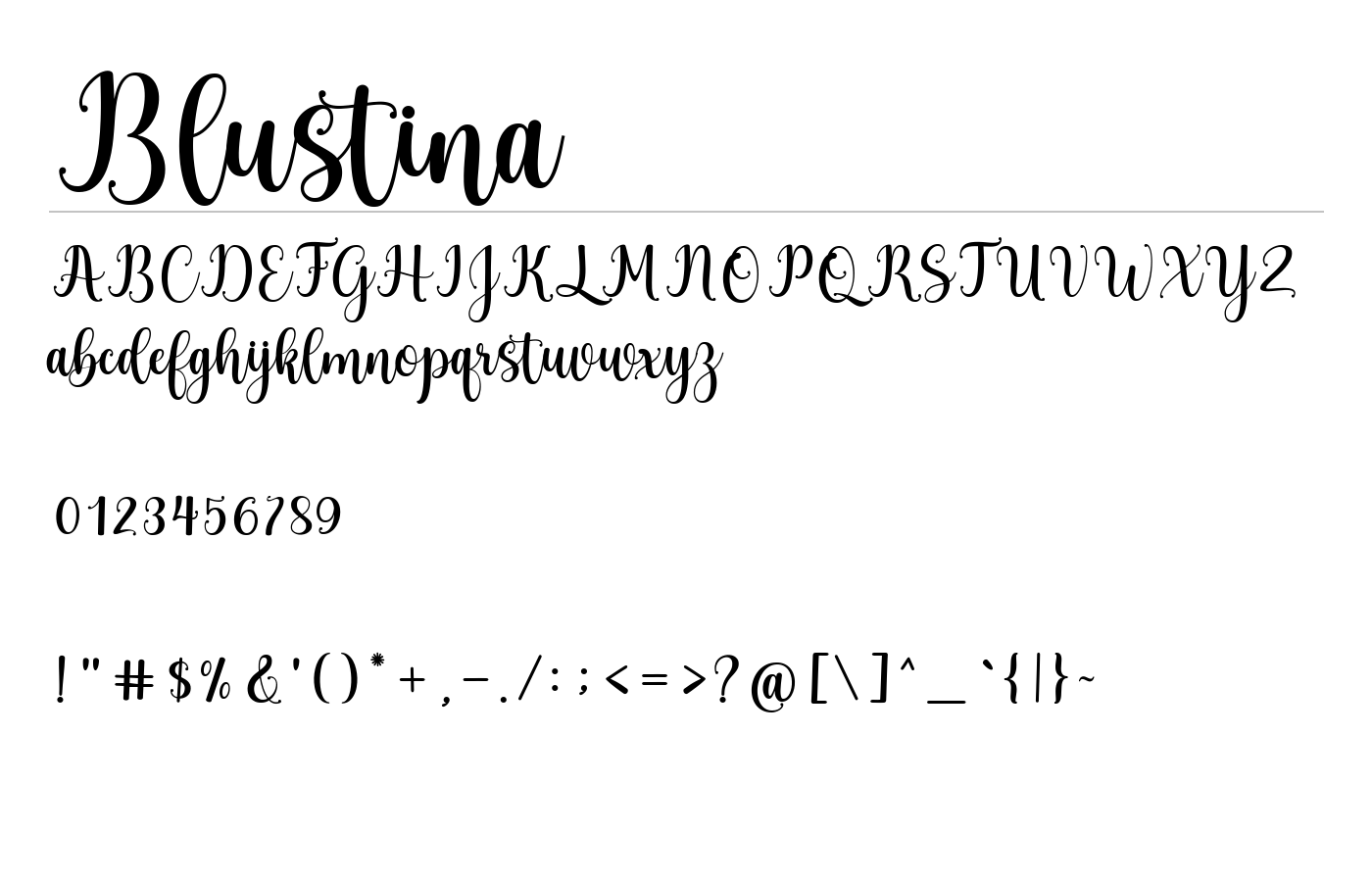
Blustina is a stylish script font with elegant, flowing letterforms that combine playful charm with a refined touch. Its smooth, moderate contrast strokes and whimsical curls make it perfect for adding a personal, creative flair to invitations, branding, and decorative headlines, delivering a friendly yet sophisticated feel. This font works beautifully in designs that call for an inviting and artistic presence.
Blustina Font
About Blustina Font
| Font family | Blustina Font |
| Designer | Romi Rahmadi |